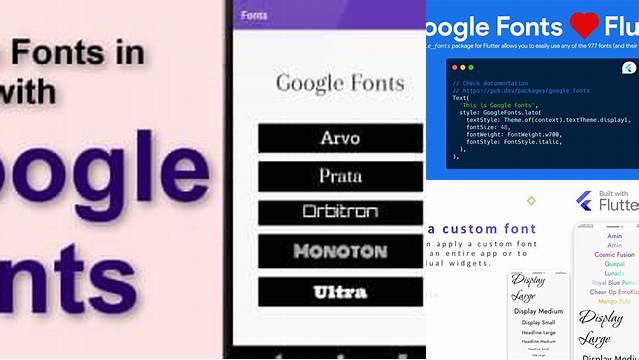
Flutter Google Fonts: How To Use Font Families
Flutter, a powerful UI toolkit by Google, allows developers to create natively compiled applications for mobile, web, and desktop from a single codebase. One of the critical aspects of any application's user interface is typography. The Flutter Google Fonts package simplifies the process of incorporating beautiful and diverse fonts from the Google Fonts library directly into your Flutter projects. This guide delves deep into the Flutter Google Fonts font family, providing a comprehensive overview of how to use it effectively, optimize your font loading, and create stunning visual experiences. The Flutter Google Fonts font family is a game-changer for Flutter developers seeking to elevate their app's aesthetic appeal and enhance readability.
H2: Getting Started with Flutter Google Fonts
H2: Exploring the Google Fonts Library
Hey there! Let's explore the treasure trove that is the Google Fonts library. Google Fonts offers a vast collection of fonts, all free and open-source, making them ideal for any project. The library includes a wide variety of styles, from classic serifs and sans-serifs to modern display fonts and handwritten styles. This diversity lets you find the perfect font for your project's style and target audience. The Google Fonts website is your best friend here! Head over to https://fonts.google.com/ to browse and explore the fonts. You can filter by category (serif, sans-serif, display, handwriting, monospace), language, and other properties to narrow down your search. Each font has its own page displaying its various styles and weights. You can also preview text with your chosen font and adjust its size and other settings. This helps visualize how the font will look in your application. When you've found a font you like, make a note of its name (e.g., Roboto, Open Sans, Lato). You'll use this name in your Flutter code to specify the font family. The Google Fonts website is also great for comparing fonts. You can create a collection of fonts and compare their styles side by side. This helps ensure your font choices work well together and create a cohesive look for your app. Also, be aware of the licensing terms for each font. While most are under the Open Font License, it's always good to check the details before using a font. Remember to explore, experiment, and have fun finding the perfect fonts for your projects! There's a font out there for everyone, trust me.
H3: Key Features of Google Fonts
H3: Font Weight and Style Customization
Alright, let's get into the nitty-gritty of customizing your fonts. You can modify the font's appearance to match your design using various properties. You can customize the font weight and style. Each font comes with a range of weights (from light to bold) and styles (italic, normal). With google_fonts, you can easily specify these properties when applying the font. For example, to use Roboto with a bold weight and italic style, you would: dart GoogleFonts.roboto(fontWeight: FontWeight.bold, fontStyle: FontStyle.italic) The fontWeight property accepts values like FontWeight.w100 (thin) to FontWeight.w900 (black/ultra-bold). The fontStyle property accepts FontStyle.italic or FontStyle.normal. Besides weight and style, you can customize the font size using the fontSize property (in logical pixels). For example: dart fontSize: 20.0 You can also set the text color with the color property: dart color: Colors.blue Furthermore, use the letterSpacing property to adjust the spacing between characters. Use the wordSpacing property to adjust the spacing between words. The height property sets the line height (line spacing). By combining these properties, you can fine-tune your fonts to perfection. Experimenting with these options is key to creating beautiful and readable text. Remember that the right font weight, style, size, and spacing can significantly impact the overall look and feel of your app.
H3: Using Fonts in Text Widgets
Let's get practical and talk about how to apply your chosen fonts in text widgets. The most common way to use a font is within a Text widget. You can specify the font using the style property of the Text widget. Here's a simple example: dart Text( 'Hello, Flutter!', style: GoogleFonts.roboto(fontSize: 24, color: Colors.black), ) In this example, the text